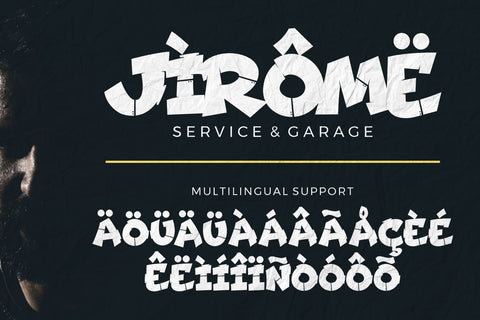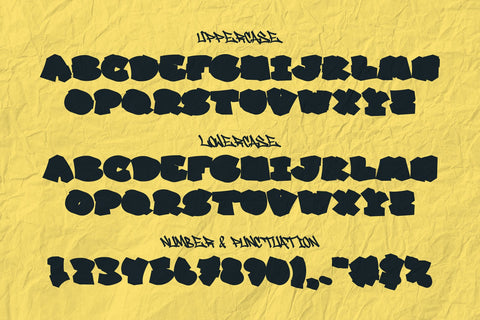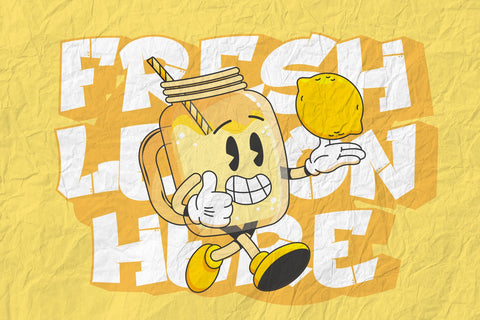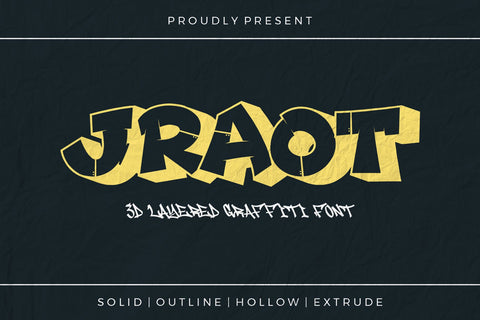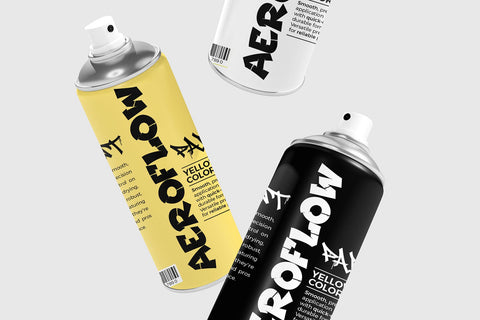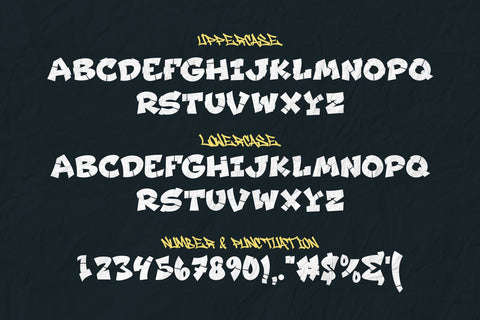
Jraot – 3D decorative Layered Graffiti Font
Jraot is a bold and expressive decorative graffiti typeface designed to bring impact to any urban-themed design. This font comes with 4 dynamic styles — Solid, Outline, Hollow, and Extrude — giving you full creative freedom to layer and customize according to your visual needs. Whether you're creating branding for streetwear, vibrant headlines, posters, or merch, Jraot adds a rebellious and energetic touch that commands attention.
With its 3D layered look and strong street influence, Jraot is perfect for projects like album covers, skate culture graphics, custom signage, stickers, apparel designs, and more. It's also fully PUA Encoded and multilingual, making it accessible and versatile for a global audience.
Font Features:
4 Styles: Solid, Outline, Hollow, Extrude
PUA Encoded
Multilingual Support
Ideal for: branding, headlines, merchandise, street art posters, and print products